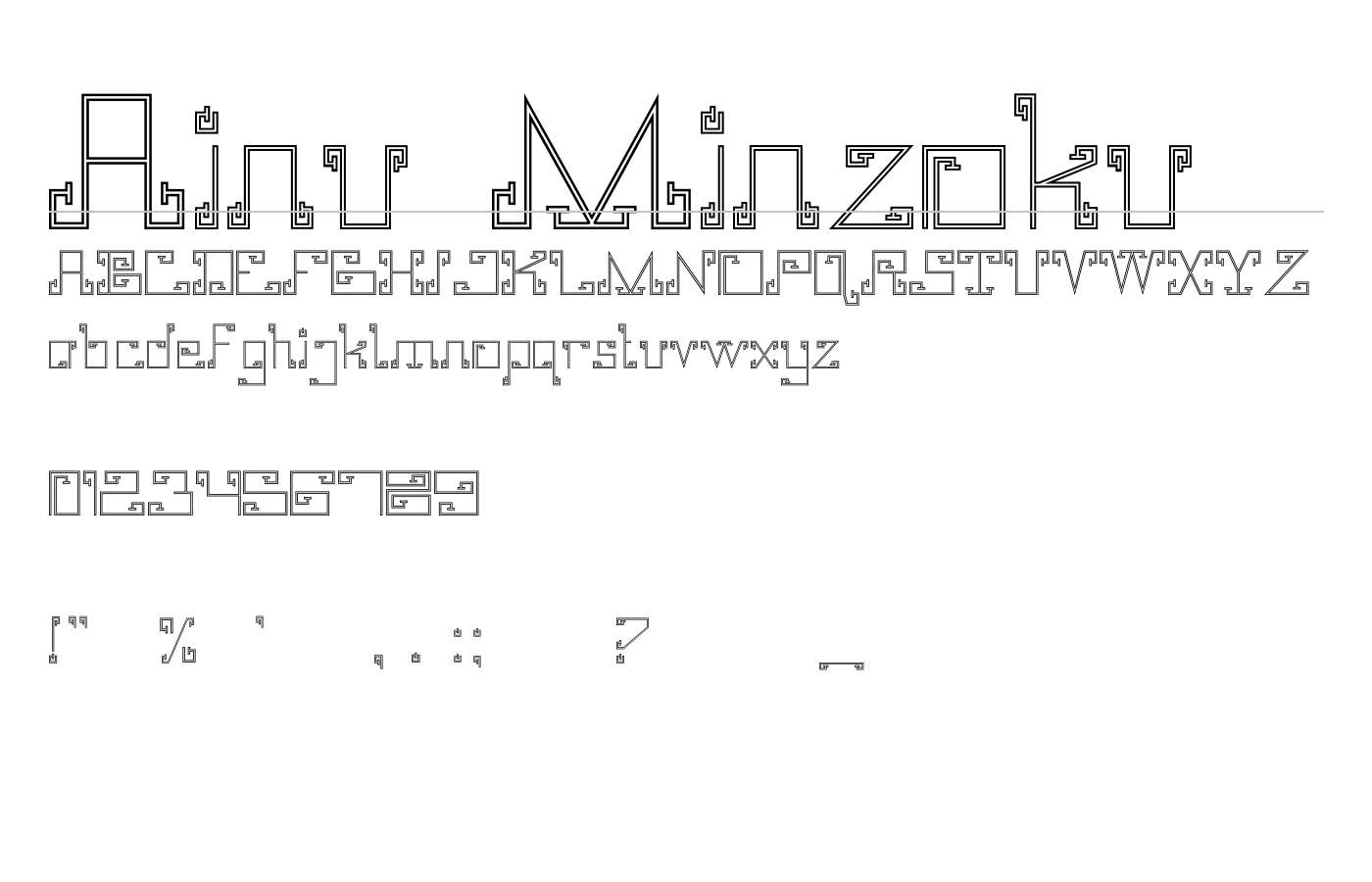
Ainu Minzoku is a decorative, geometric display font with an intricate, maze-like design inspired by traditional Ainu patterns. Its thin, angular strokes and consistent line weight give it a modern yet culturally rich feel, making it ideal for unique branding, posters, or creative projects seeking an ethnic or artistic touch. This font works best in large sizes where its detailed shapes can be appreciated without losing clarity.
Ainu Minzoku Font
About Ainu Minzoku Font